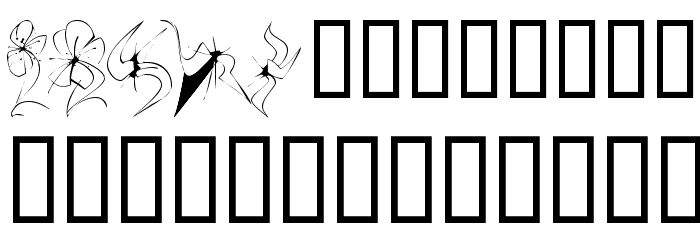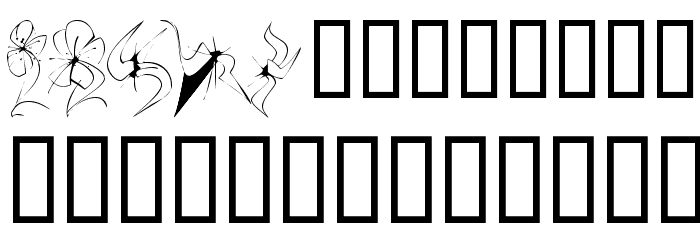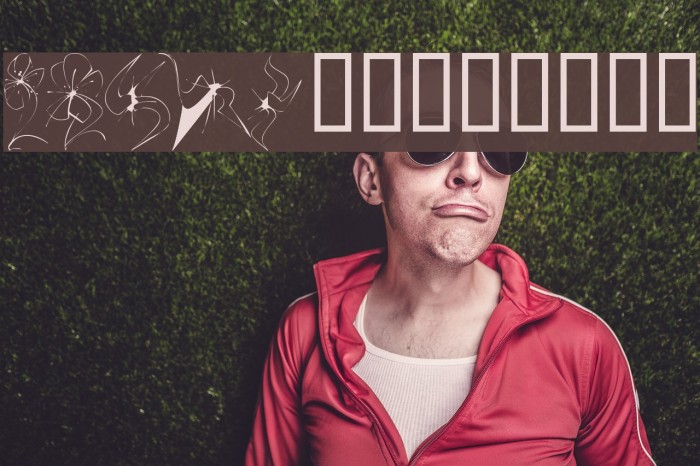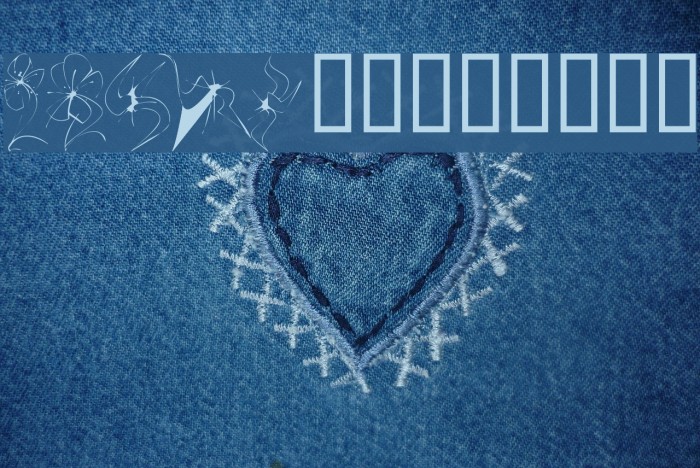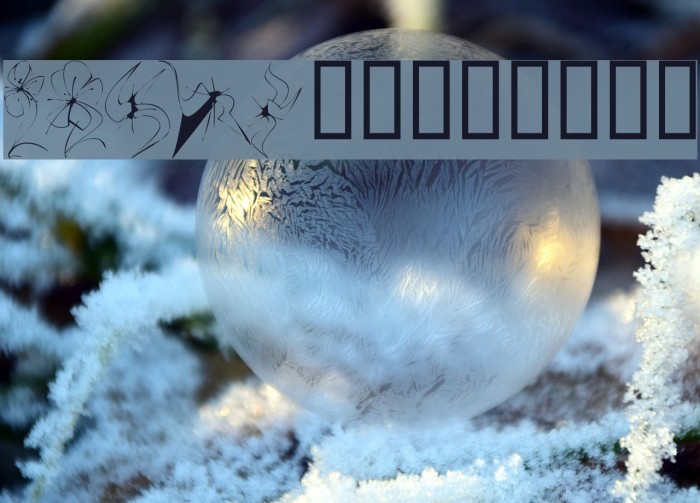
KR Fleur Flair 3 Font
This font is a highly decorative and artistic typeface, characterized by its intricate floral and flair-inspired designs. Each character is adorned with elaborate embellishments that resemble delicate flowers and swirling patterns, creating a sense of elegance and sophistication. The font's unique style makes it stand out, with each letter appearing as a piece of art. The overall design is fluid and dynamic, with a sense of movement and grace. This font is not suitable for body text due to its ornate nature but can be effectively used for decorative purposes where a touch of artistry is desired.
An artistic, floral-inspired decorative font with intricate embellishments.
- Proposed Projects: Ideal for wedding invitations, greeting cards, artistic posters, and decorative branding projects.
- Use Case: Logos, Decorative headings, Artistic projects